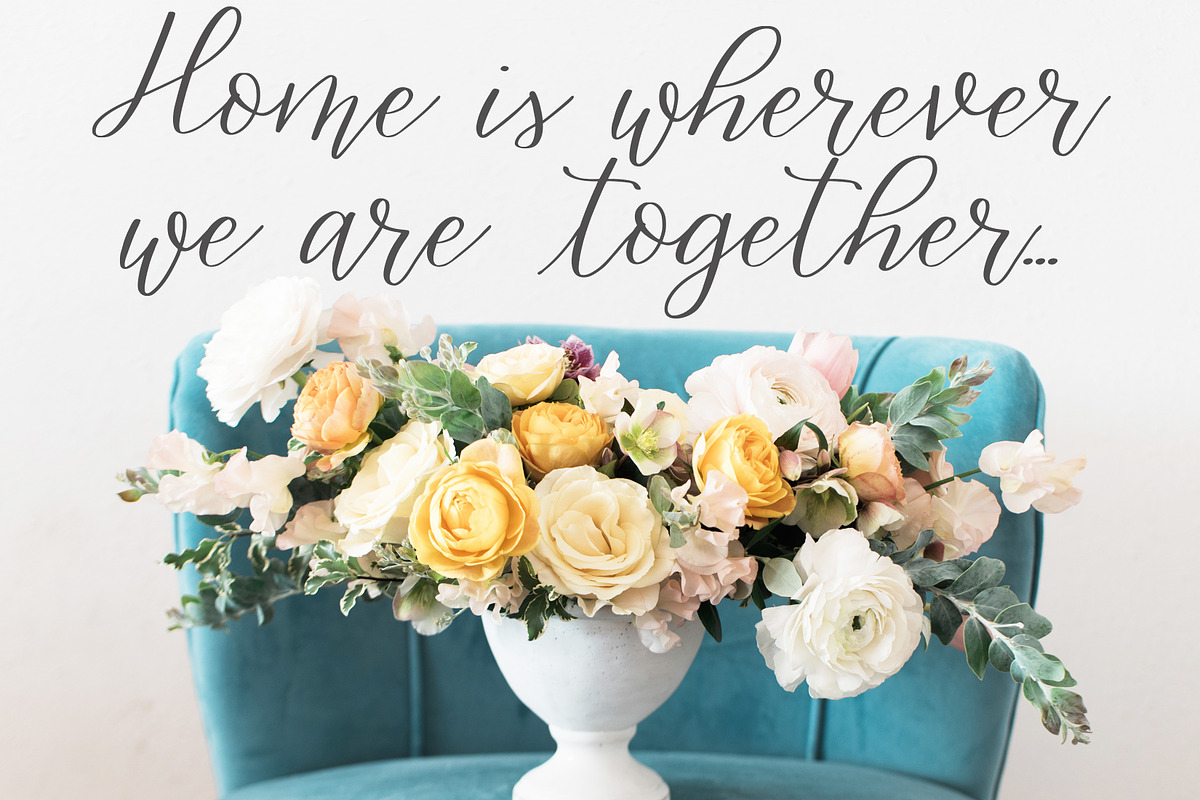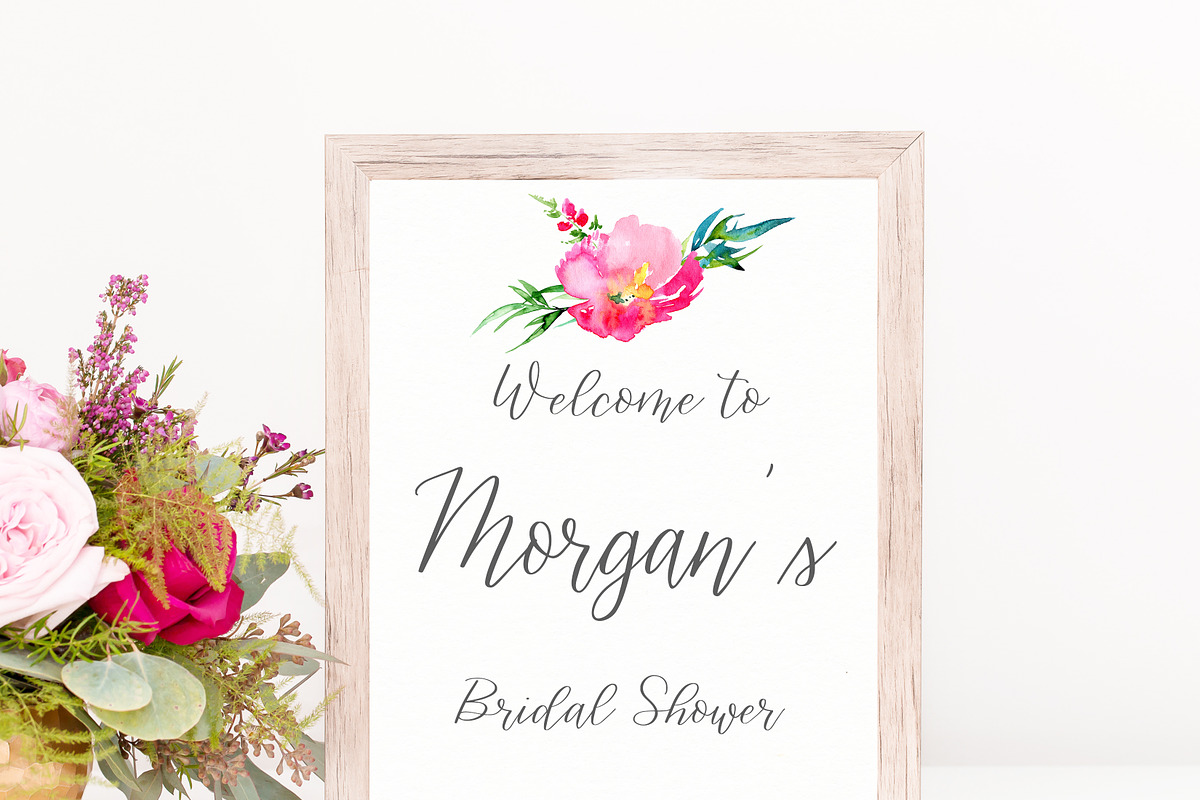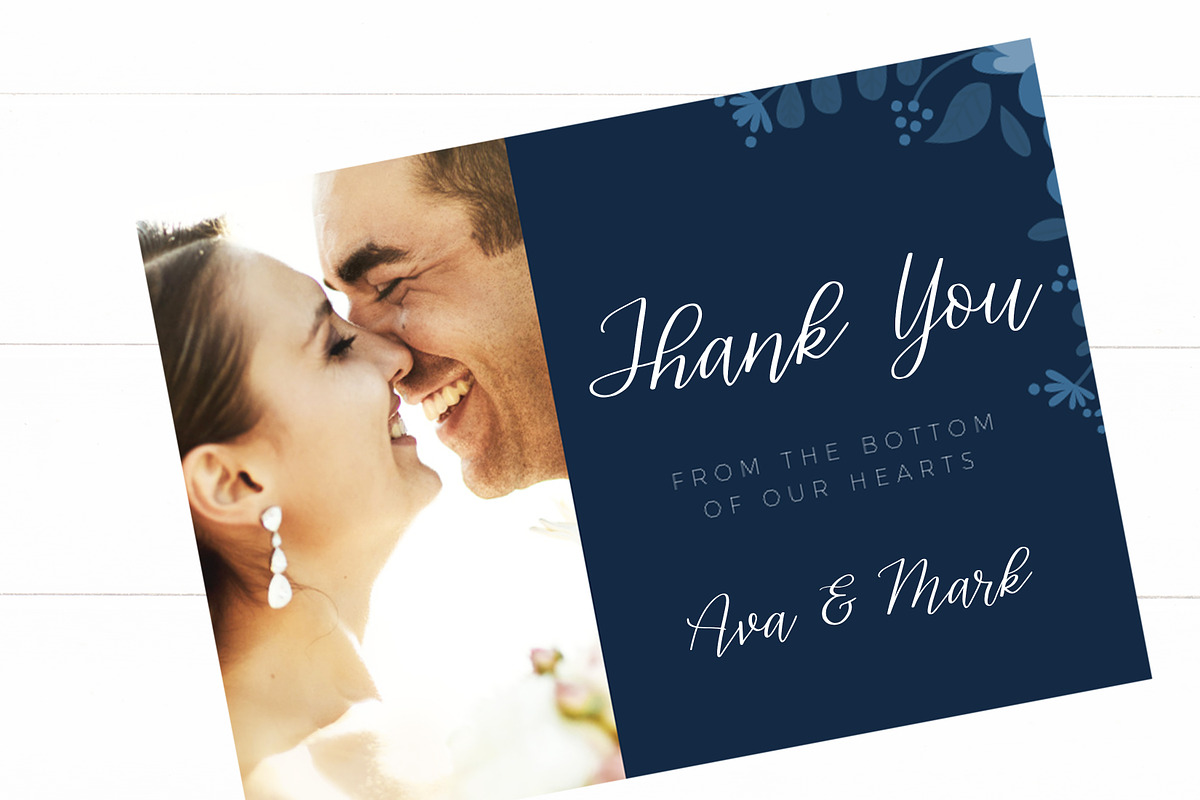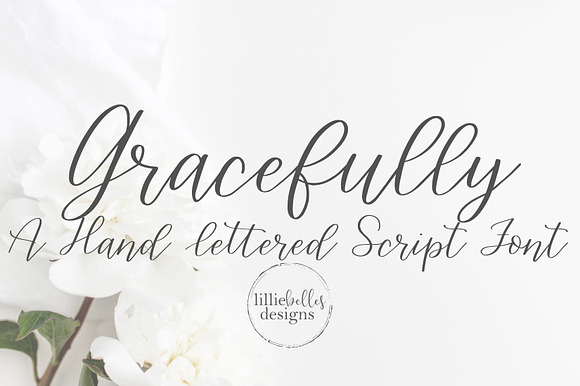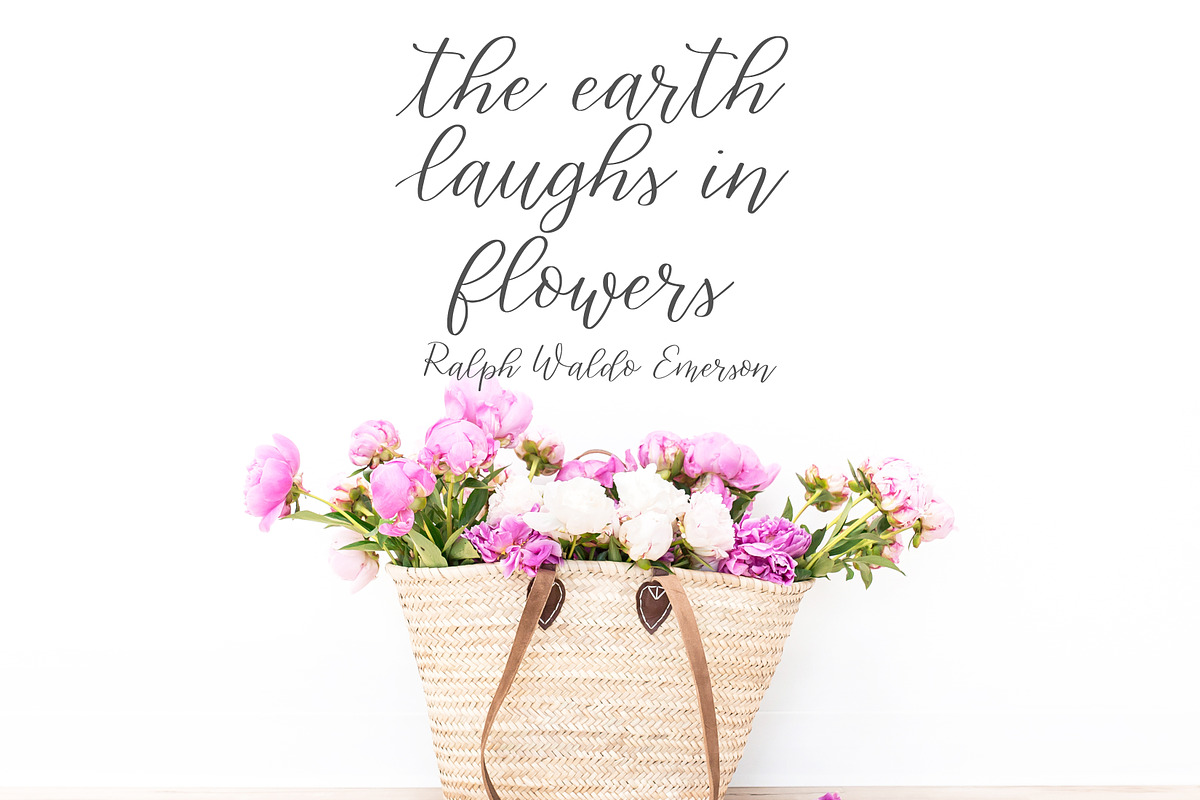
Gracefully-a Handwritten Script Font
Gracefully - a Handwritten Script Font
Gracefully is a beautiful font perfect for invitations, cards, gift tags, and other design projects. Here's what's included:
Why Gracefully-a Handwritten Script Font is worth a look
Gracefully-a Handwritten Script Font by lillie belles designs fits naturally into Branding, posters, packaging, typography.